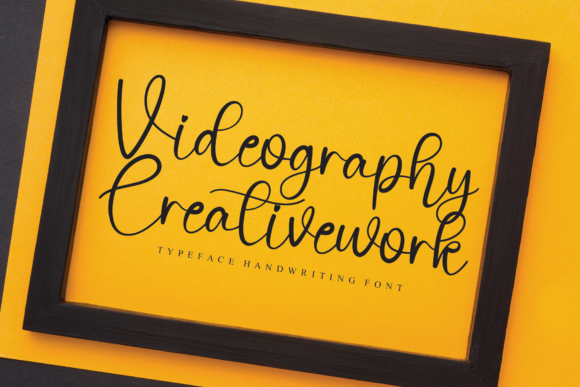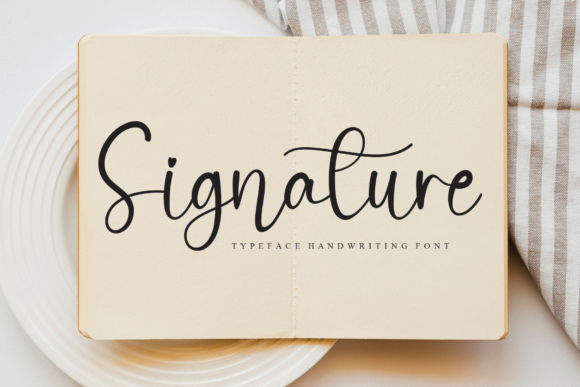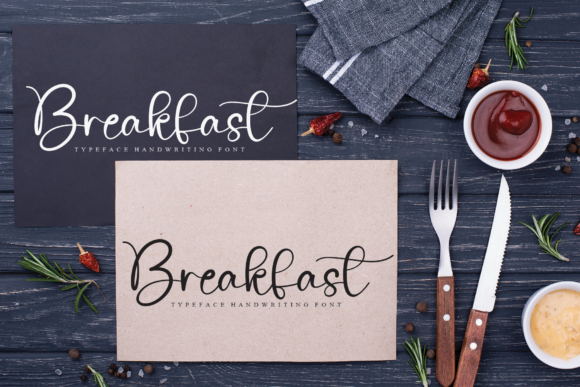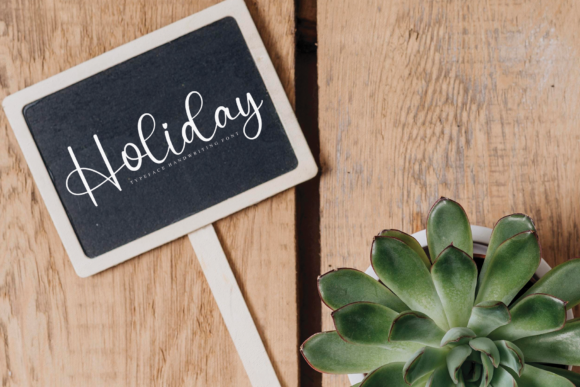
Hello Homework Font
About Hello Homework Font
Hello Homework is a whimsical script font with a relaxed and playful theme, showcasing a lovely style. This font is an incredibly valuable asset to your font library, as it has the potential to elevate any creation, regardless of the topic.
With its whimsical and carefree nature, Hello Homework brings a sense of joy and lightheartedness to your typography. Its playful script style and charming characters make it a perfect choice for designs that need a touch of fun and warmth. Whether you’re working on branding materials, invitations, packaging, or any other creative project, Hello Homework will elevate your designs and bring a smile to your audience.
No matter the topic or purpose of your design, Hello Homework has the potential to enhance it. Its unique style and relaxed theme make it versatile for a wide range of applications. From children’s designs to vibrant and cheerful projects, Hello Homework adds a delightful and inviting element.
Embrace the whimsical charm of Hello Homework and witness how it enhances your creations. Incorporate this font into your projects, and you’ll see how it adds a touch of joy and personality.